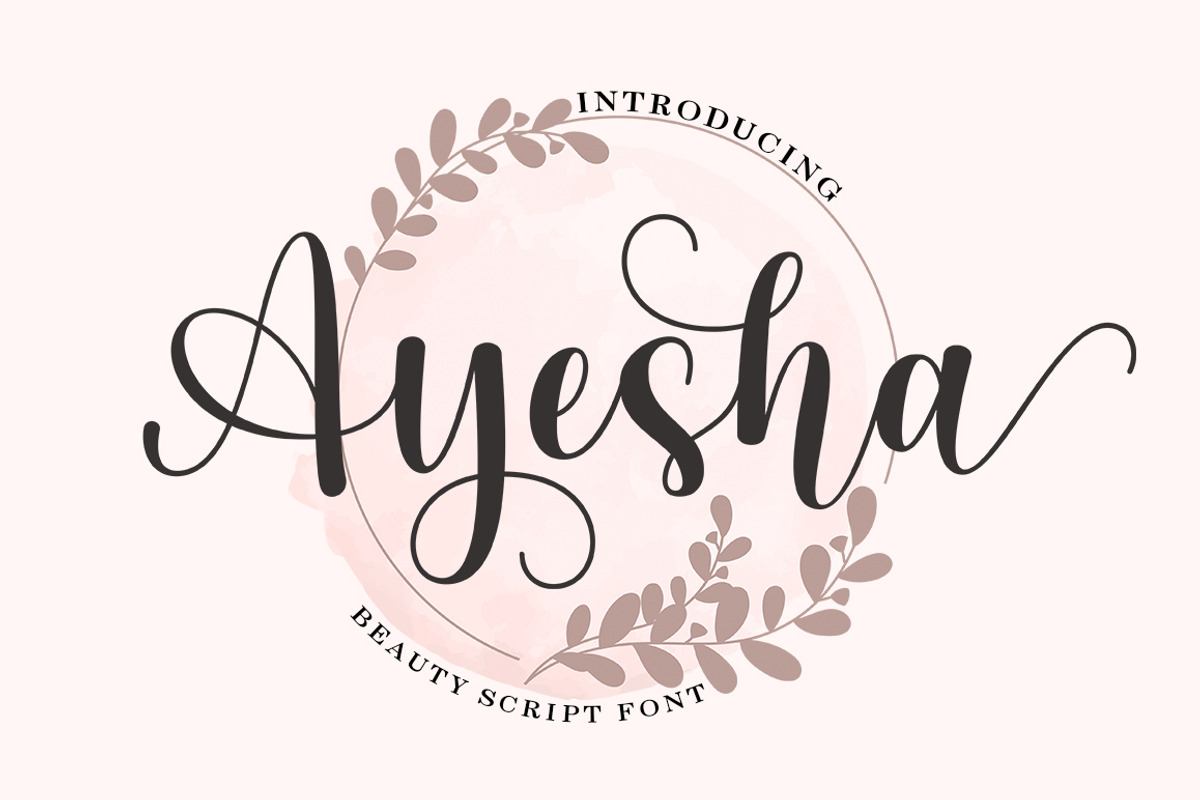
Ayesha Font Free Download is a graceful and modern script typeface that captures the look of elegant handwriting with a fashionable flair. With its smooth, flowing lines and stylish curves, this font is perfect for wedding invitations, personal branding, social media graphics, boutique logos, and lifestyle content that calls for a personal, feminine touch.
Designed to feel both sophisticated and approachable, Ayesha Font Free Download adds charm and elegance to any project. It features lovely ligatures and a natural rhythm that makes your text look effortlessly handwritten, while still remaining clean and readable.